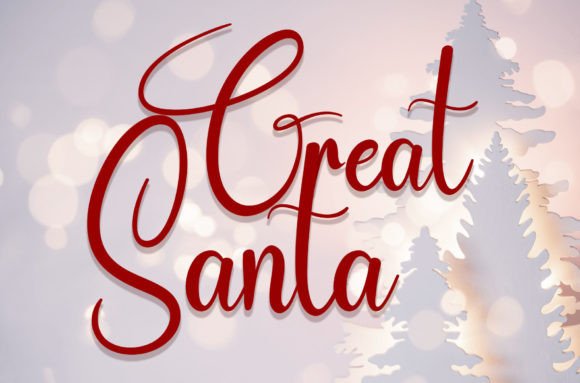
Journey into the realm of captivating artistry with Great Santa, a script font family crafted with flair and elegance. Inspired by the vibrant energy of fitness enthusiasts, Great Santa is more than just a font; it's a testament to the power of movement and the beauty of the human form. Unleash your creativity and let your designs soar with Great Santa, a font family that seamlessly blends style and functionality, ushering you into a world of visual brilliance.
With its varying baseline, Great Santa introduces a dynamic rhythm to your designs, captivating the eyes and igniting imagination. Its smooth lines flow like a graceful dancer, creating a sense of harmony and fluidity that will leave your audience spellbound. Each glyph is meticulously crafted, a testament to the attention to detail and the passion that went into creating this masterpiece.
Great Santa's versatility knows no bounds. Its elegant curves and energetic strokes make it the perfect choice for a multitude of projects, from fitness websites brimming with energy to lifestyle blogs pulsating with vitality. Its adaptability extends to branding endeavors, where Great Santa's inherent charm can elevate your business to new heights.
Whether you're a seasoned designer seeking to leave an indelible mark or an aspiring creative eager to make your voice heard, Great Santa is the font family that will ignite your passion and help you achieve greatness. Its modern aesthetic and timeless appeal will ensure that your designs stand the test of time, leaving a lasting impression on your audience.
Dive into the world of Great Santa today and discover a font family that will transform your designs into breathtaking works of art. Its charm and versatility will captivate your imagination and propel your creativity to new heights. Embrace the spirit of fitness and let Great Santa be your guide as you embark on a journey of visual excellence.